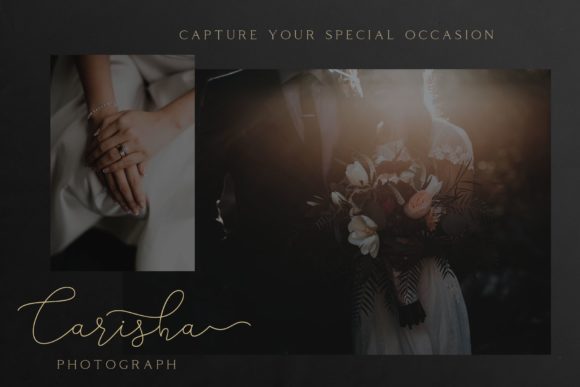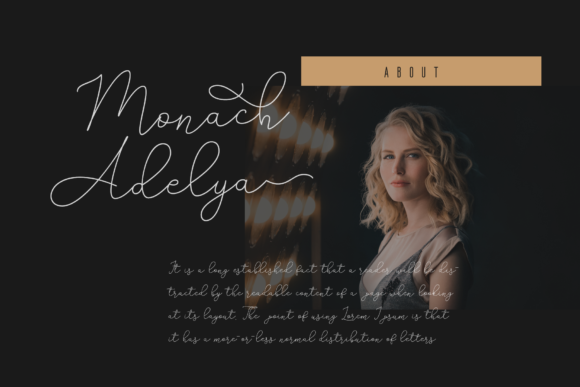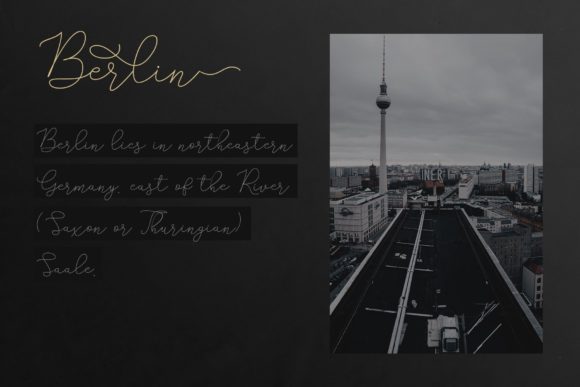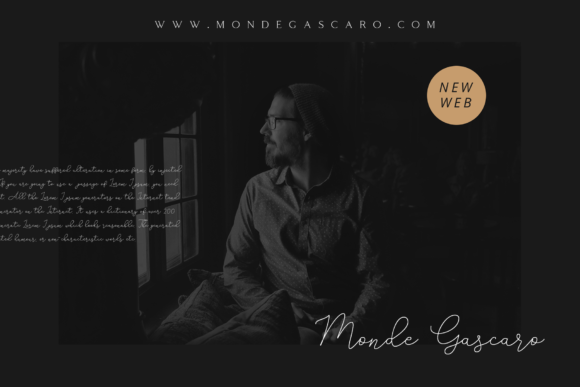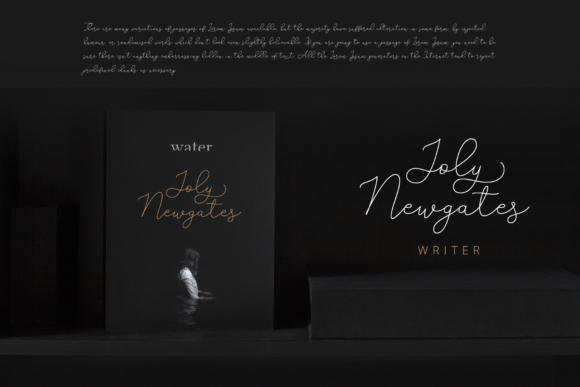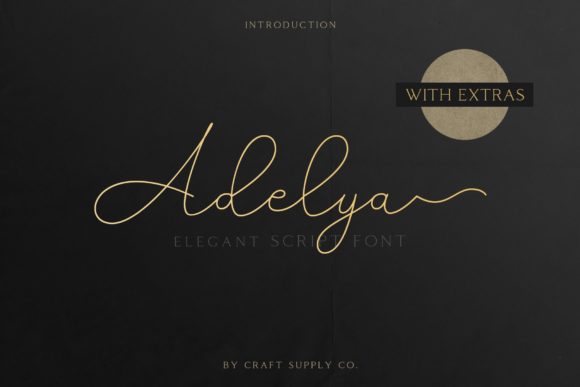
Introducing Adelya Font: Elevate Your Designs with Elegance and Readability
In the world of design, fonts play a pivotal role in conveying messages, evoking emotions, and creating lasting impressions. For designers, crafters, and DIY enthusiasts, finding the perfect font can be a daunting task. However, if you’re looking for a font that combines elegance with readability, look no further than Adelya Font. This free-flowing monoline signature font is about to become your go-to choice for a wide array of design projects.
What is Adelya Font?
Adelya Font is a beautifully crafted, monoline signature font that exudes elegance and sophistication. Its fluid lines and classic style make it an ideal choice for projects where you want to add a touch of refinement. Whether you’re working on a greeting card, package design, brand identity, craft project, book title, wedding invitation, or any other design endeavor, Adelya Font is designed to make your artwork look pretty and trendy.
Key Features of Adelya Font
- Elegant Feel: Adelya Font boasts an elegant feel that can instantly elevate the aesthetic of your designs. Its monoline signature style is both modern and timeless, making it versatile for various applications.
- Great Readability: Despite its elegant appearance, Adelya Font does not compromise on readability. This makes it perfect for designs where you need to convey a message clearly and stylishly.
- Included Alternates: One of the standout features of Adelya Font is the inclusion of alternates. This allows you to play around with different variations, ensuring your design stands out and captures the desired attention.
- Free-Flowing: The font’s free-flowing nature makes it incredibly versatile. It can be used for a wide range of projects, from formal to casual, without losing its charm.
Use Cases for Adelya Font
The versatility of Adelya Font means it can be used in numerous design projects. Here are some of the most popular applications:
- Greeting Cards: Add a touch of elegance to your greeting cards for special occasions like birthdays, anniversaries, or holidays.
- Package Design: Elevate your product packaging with a sophisticated font that stands out on shelves.
- Brand Identity: Create a lasting impression with a unique and elegant font for your brand’s logo or marketing materials.
- Craft Design: Perfect for crafters, Adelya Font can add a professional touch to handmade products, such as labels or instructional cards.
- DIY Projects: Whether you’re creating art, scrapbooking, or working on any DIY project, Adelya Font can add a stylish element.
- Book Titles: Use Adelya Font for book titles or headings to give your publication a classic and sophisticated look.
- Wedding Invitations: Make your wedding invitations or wedding-related designs truly special with this elegant font.
- Identity Cards: For professional and personal identity cards, Adelya Font offers a clean and elegant look.
- Packaging: Enhance your product packaging with a font that offers both style and readability.
Tips for Using Adelya Font
To make the most out of Adelya Font, consider the following tips:
- Experiment with Alternates: Don’t hesitate to try out the included alternates to find the perfect fit for your design.
- Combine with Other Fonts: Adelya Font pairs well with both serif and sans-serif fonts. Experiment with combinations to find a look that suits your project.
- Adjust Size and Color: Depending on your design, you may want to adjust the size and color of the font to ensure it complements your overall aesthetic.
| Author | craftsupplyco |
Adelya Font is a versatile and elegant monoline signature font that can elevate a wide range of design projects. Its combination of elegance, readability, and included alternates makes it a valuable addition to any designer’s toolkit. Whether you’re a professional designer or a DIY enthusiast, Adelya Font offers the perfect blend of style and functionality to make your designs stand out. So, feel free to play with all the included alternates and discover the endless possibilities Adelya Font has to offer.